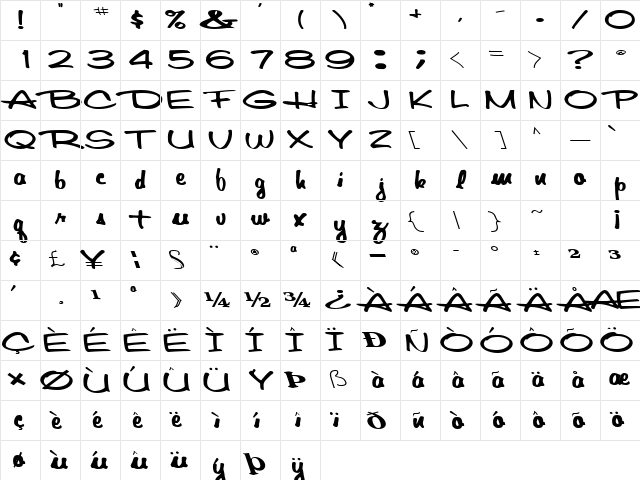
RumbleSeatFinal Bold
Design Context for RumbleSeatFinal
RumbleSeatFinal is a composed and adaptable typeface that performs quietly and consistently across a wide range of design contexts. Its bold stroke weight gives it real presence on the page.